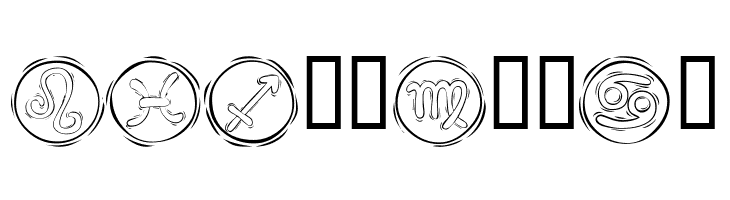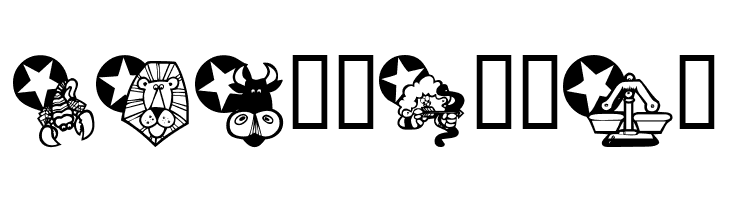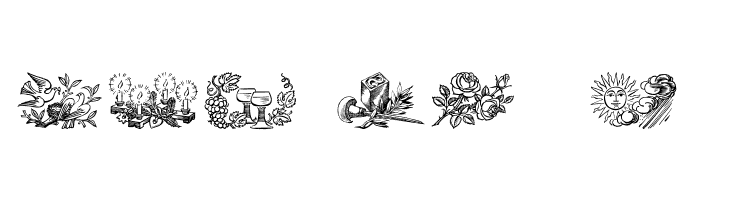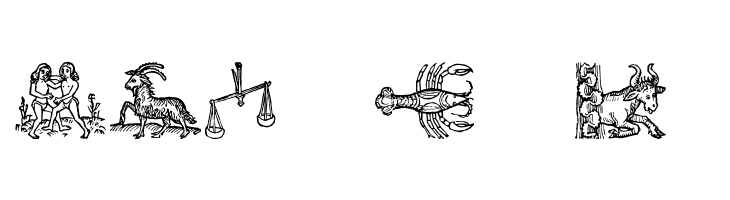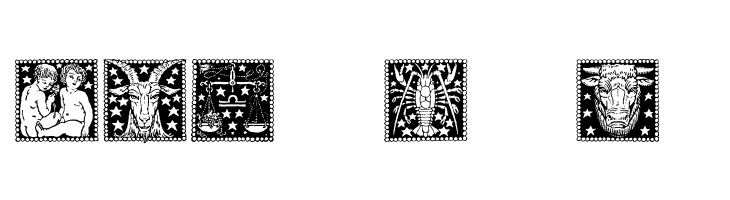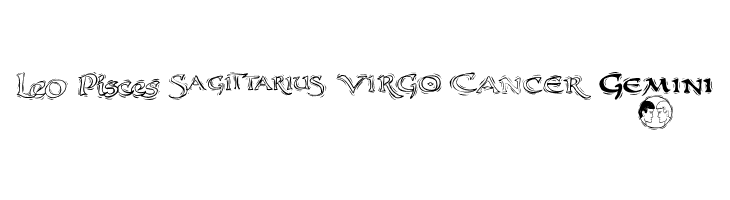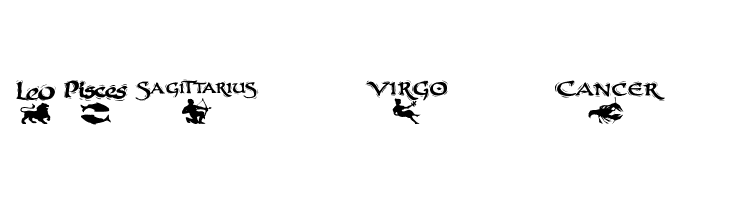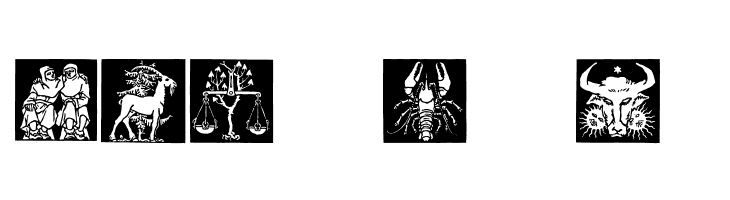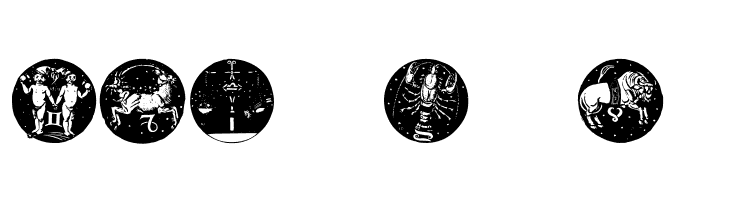
A decorative font featuring zodiac symbols in circular designs.
Ornate dingbat font with zodiac and seasonal illustrations.
A decorative font featuring artistic zodiac sign representations.
Decorative zodiac symbols with intricate illustrations.
A whimsical, decorative font with astrological themes and zodiac symbols.
A decorative font featuring zodiac symbols and calligraphic style.
Ornate zodiac symbol illustrations in a decorative dingbat style.
Ornate, pictorial font with zodiac-themed illustrations in circular frames.
Whimsical zodiac-themed display font with illustrated glyphs.